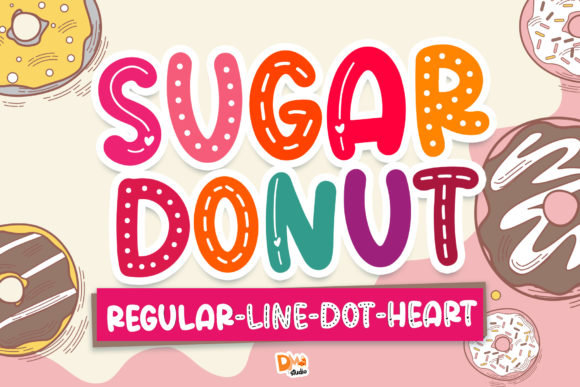
Introducing Sugar Donut Font - the perfect font for minimalist design! Created by dmletter31, this cute and fun display font is sure to make your designs come alive. With its chunky lettered style, Sugar Donut embodies playfulness and authenticity, making it the perfect choice for any children's activity or school project.
If you're looking to add some fun and creativity to your designs, Sugar Donut is the way to go. Whether you're designing a poster, creating a website, or putting together a social media campaign, Sugar Donut will help your content stand out. Its unique style is eye-catching and attention-grabbing, making it perfect for catching the eye of your target audience.
With Sugar Donut, you'll be able to add a touch of whimsy to any project. This font is perfect for creating invitations, greeting cards, and any other project that needs a playful touch. Its versatility makes it a great choice for any design project, whether you're creating a logo, a banner, or a flyer.